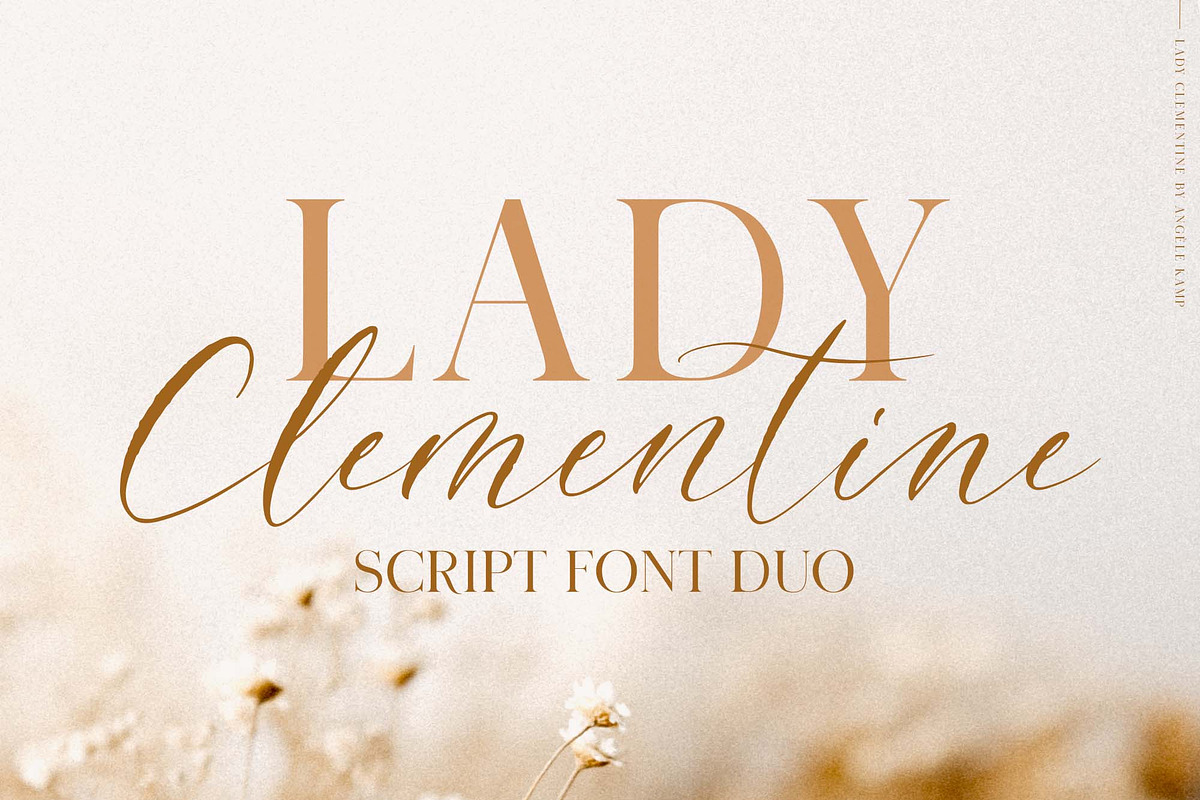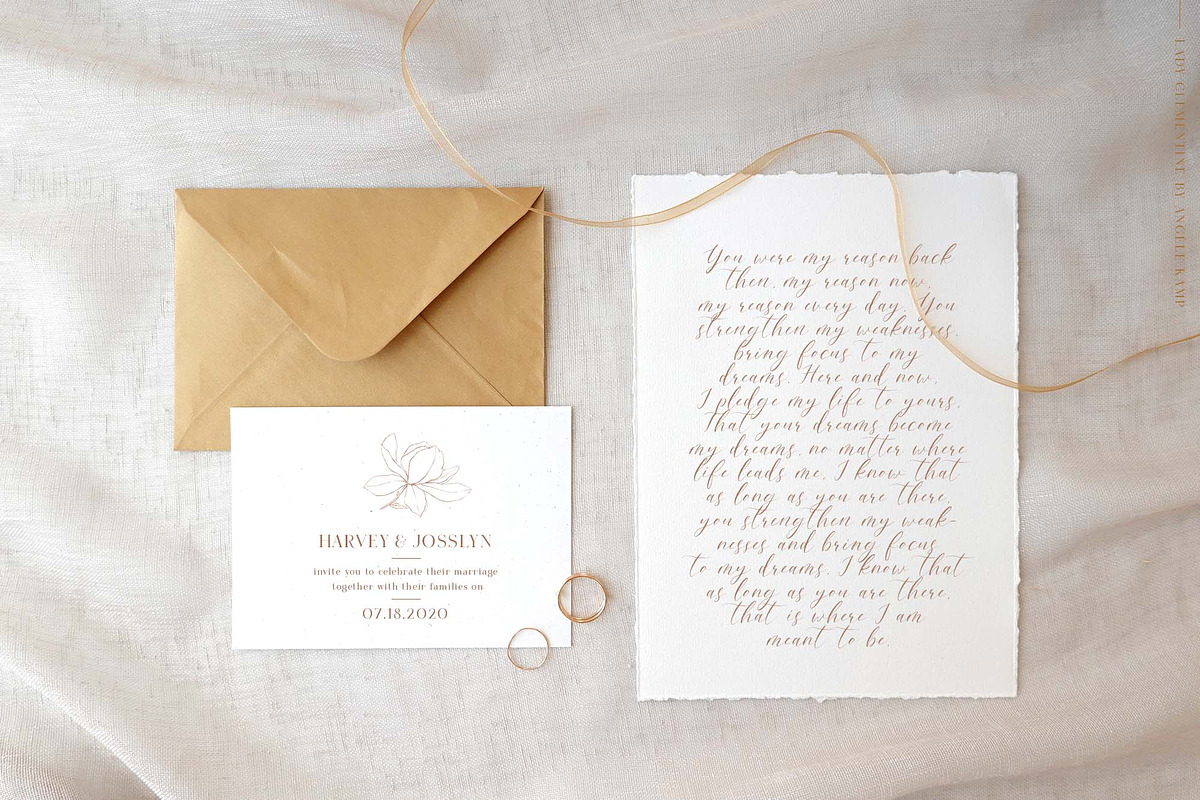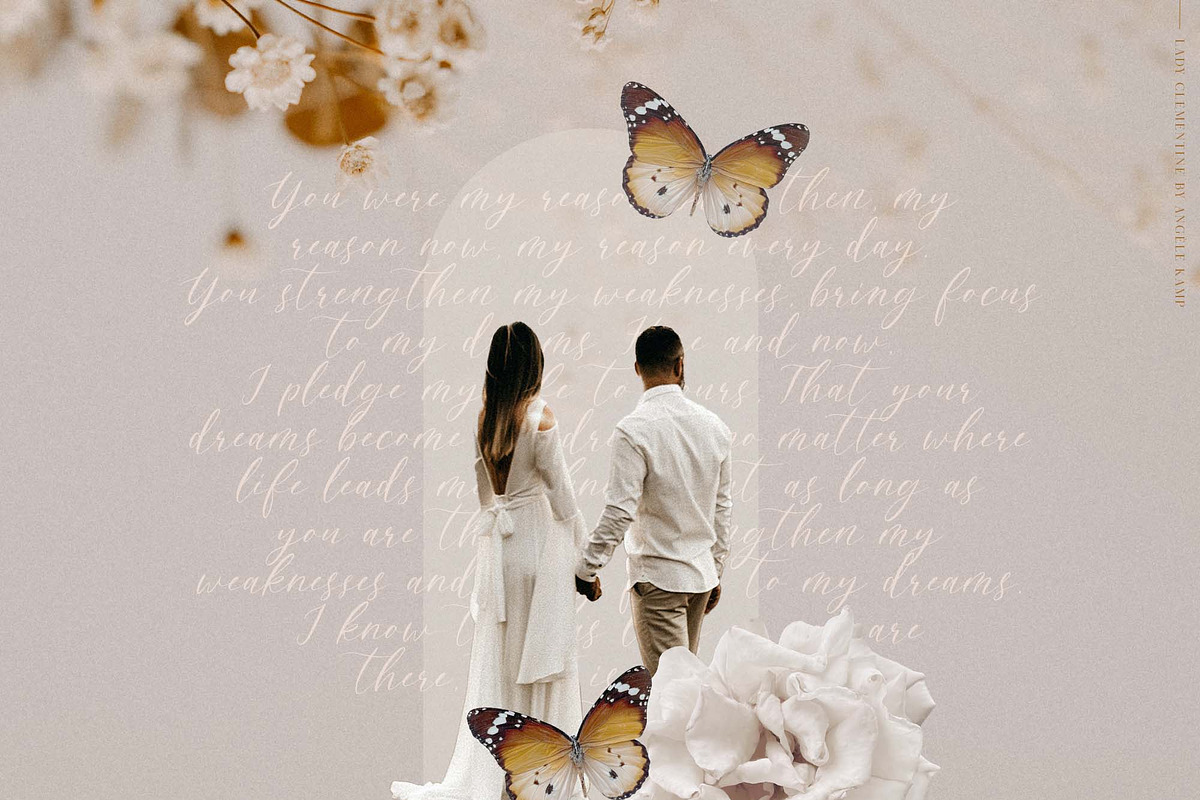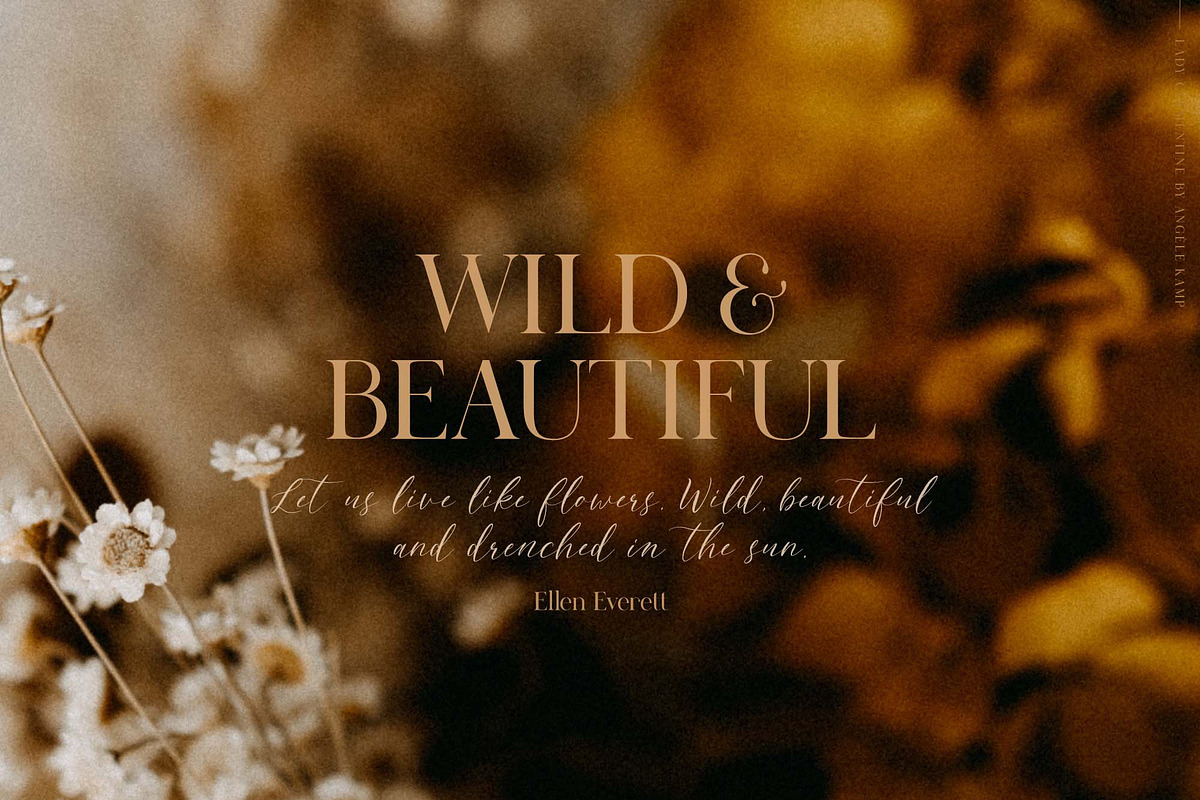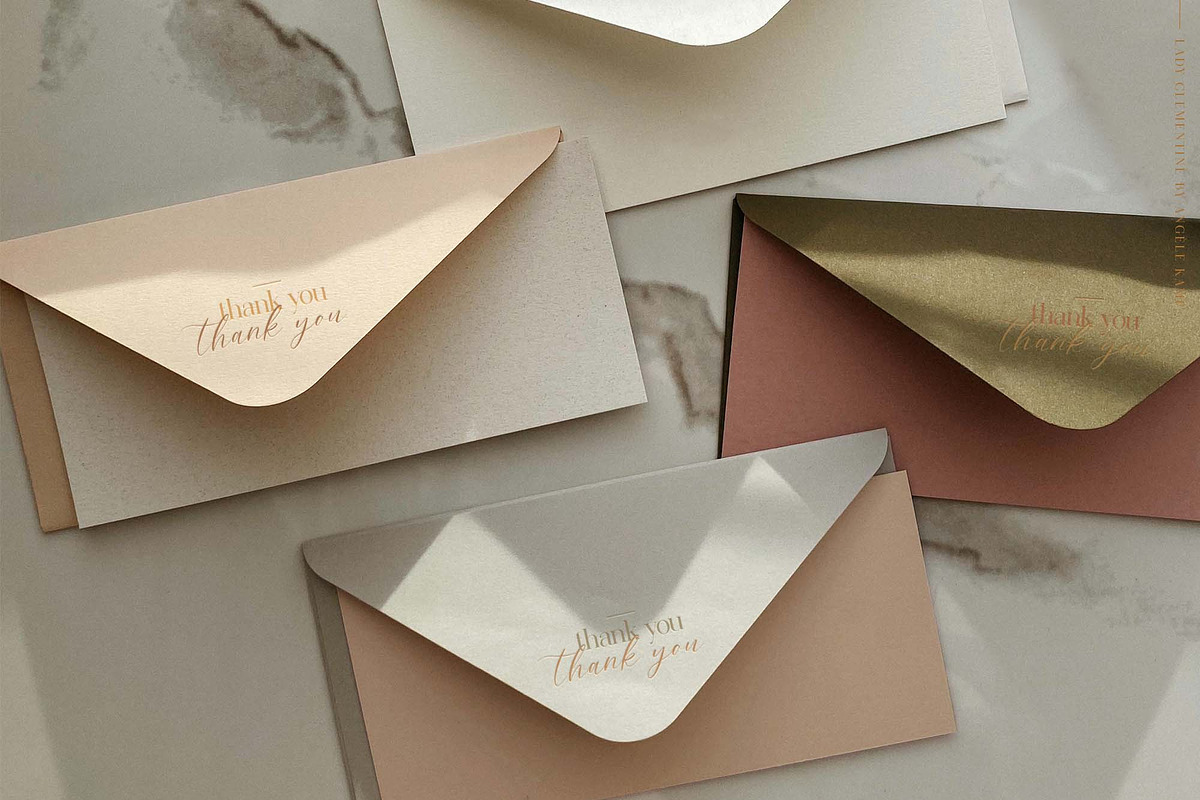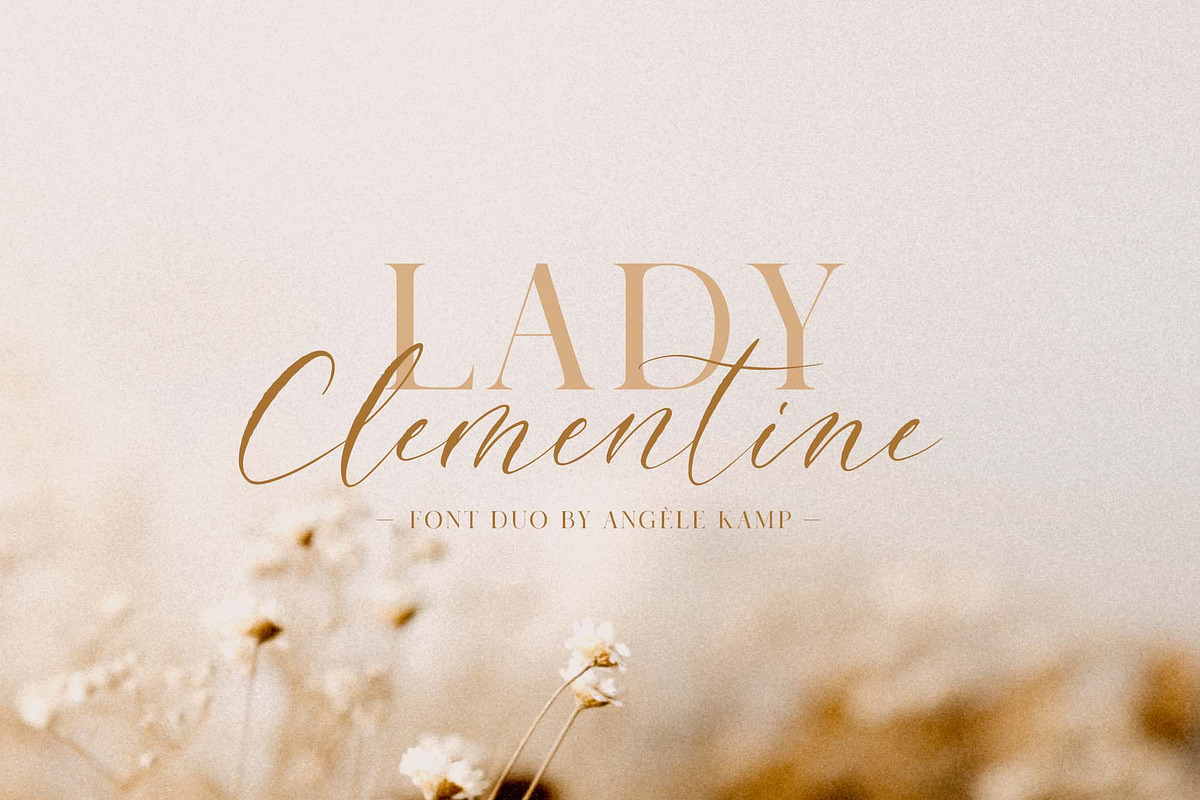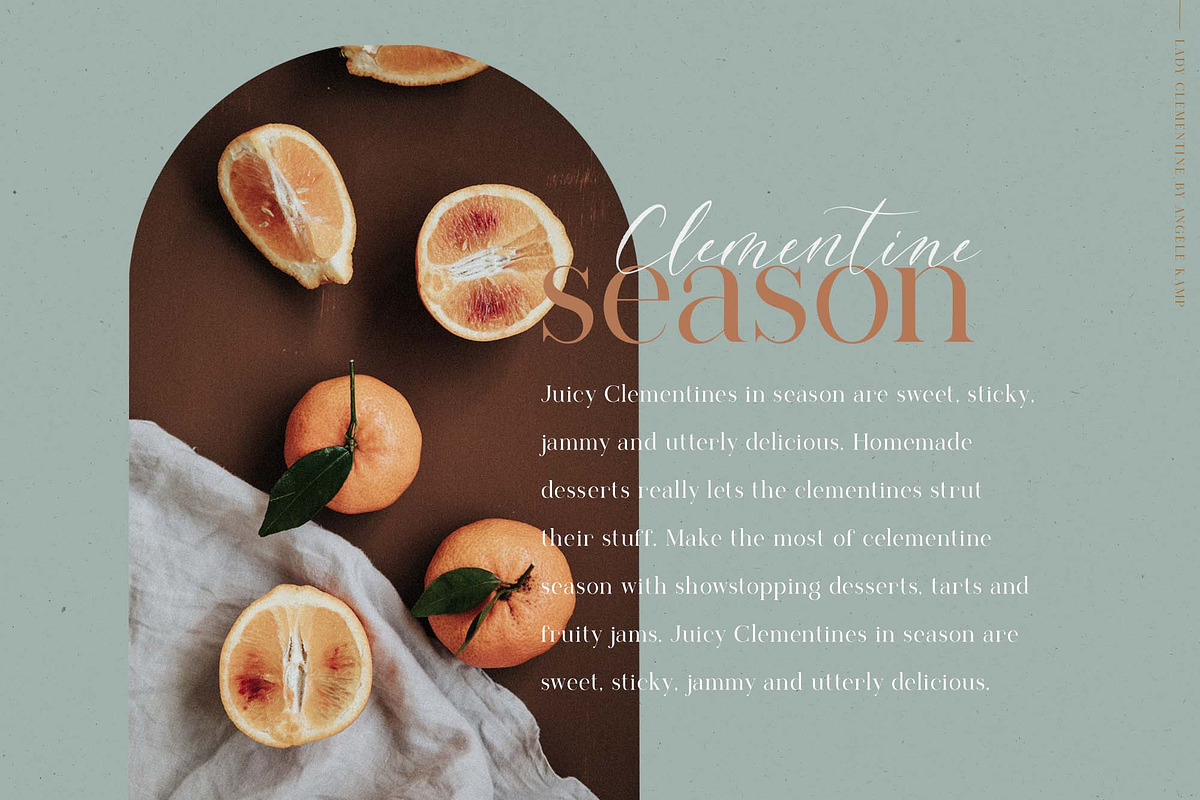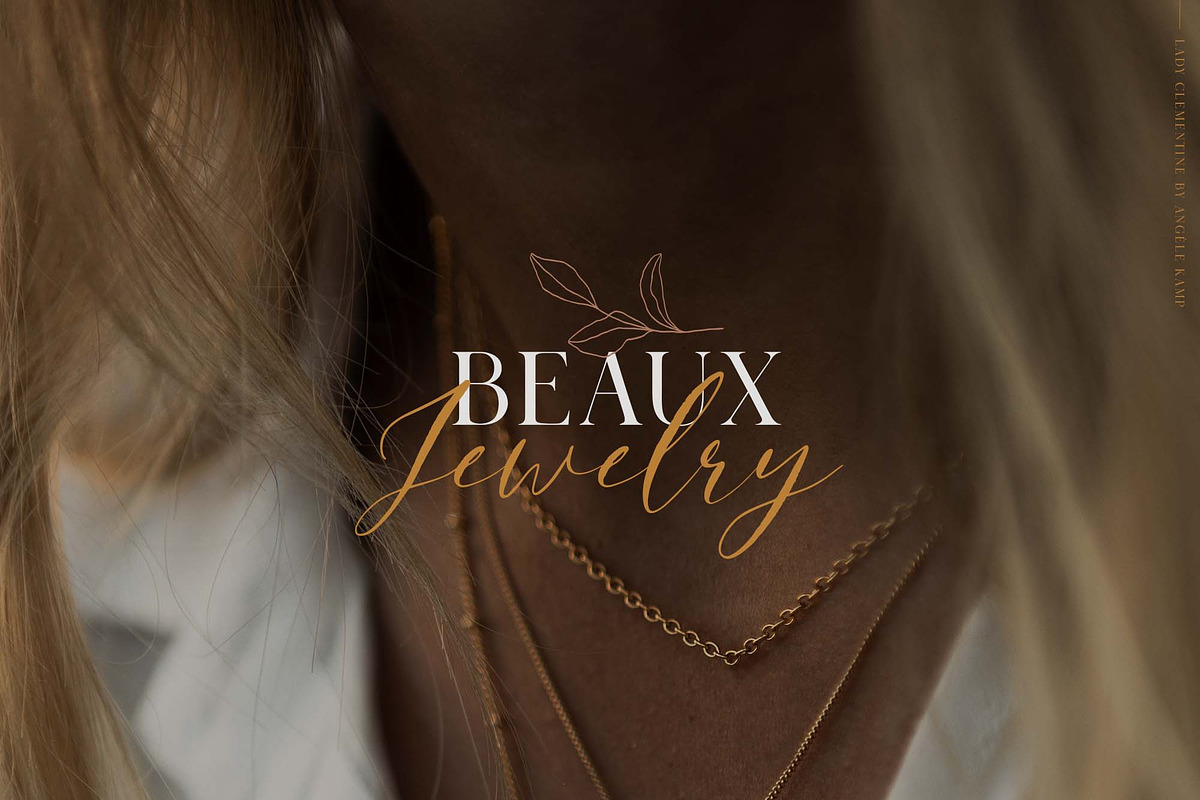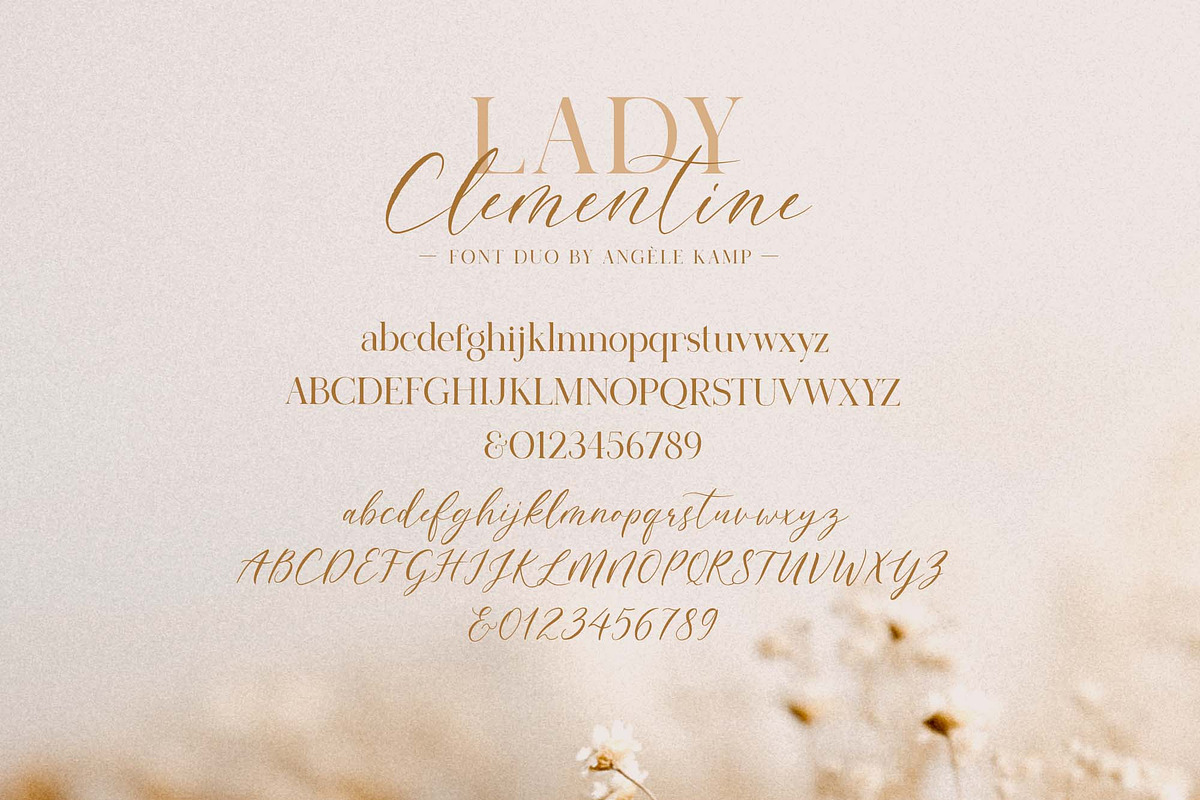
Lady Clementine wedding script fonts
Meet Lady Clementine, a romantic wedding font duo featuring a textured script paired with a luxurious serif typeface. This elegant combination brings sophistication and charm to your designs, perfect for creating timeless, stylish visuals.
The script font offers a subtle, hand-lettered texture, resembling the look of authentic modern calligraphy. Paired with the refined serif, it creates a balanced and polished appearance that complements the script beautifully.
Lady Clementine is the ideal choice for wedding invitations, save-the-date cards, feminine branding, stylish logos, and sophisticated stationery. Its classic yet modern appeal makes it a must-have addition to your font collection.